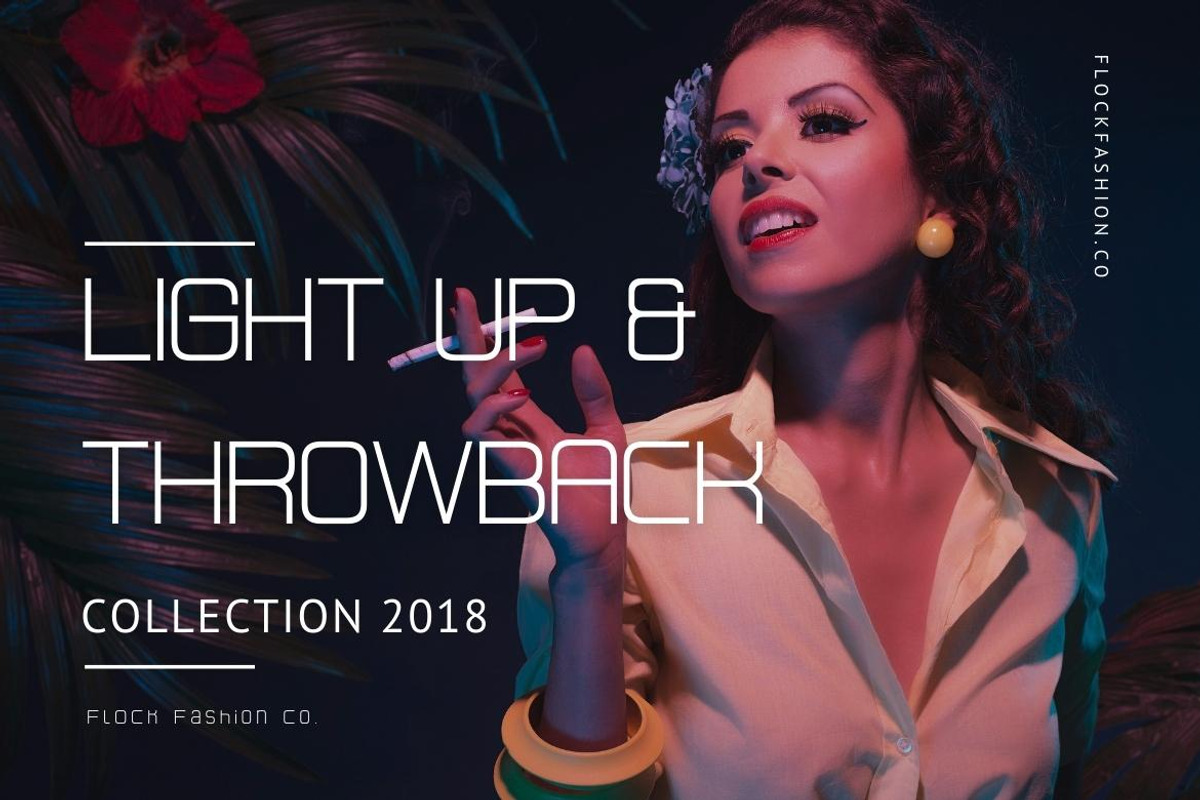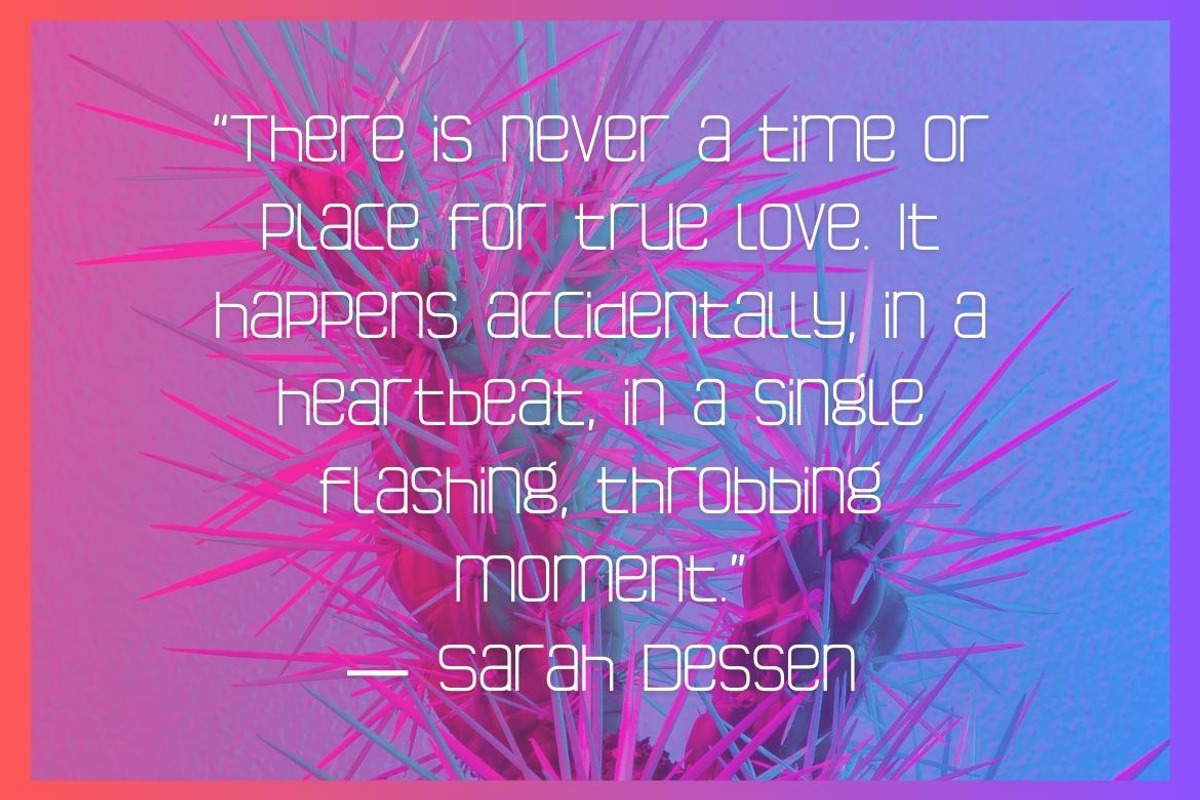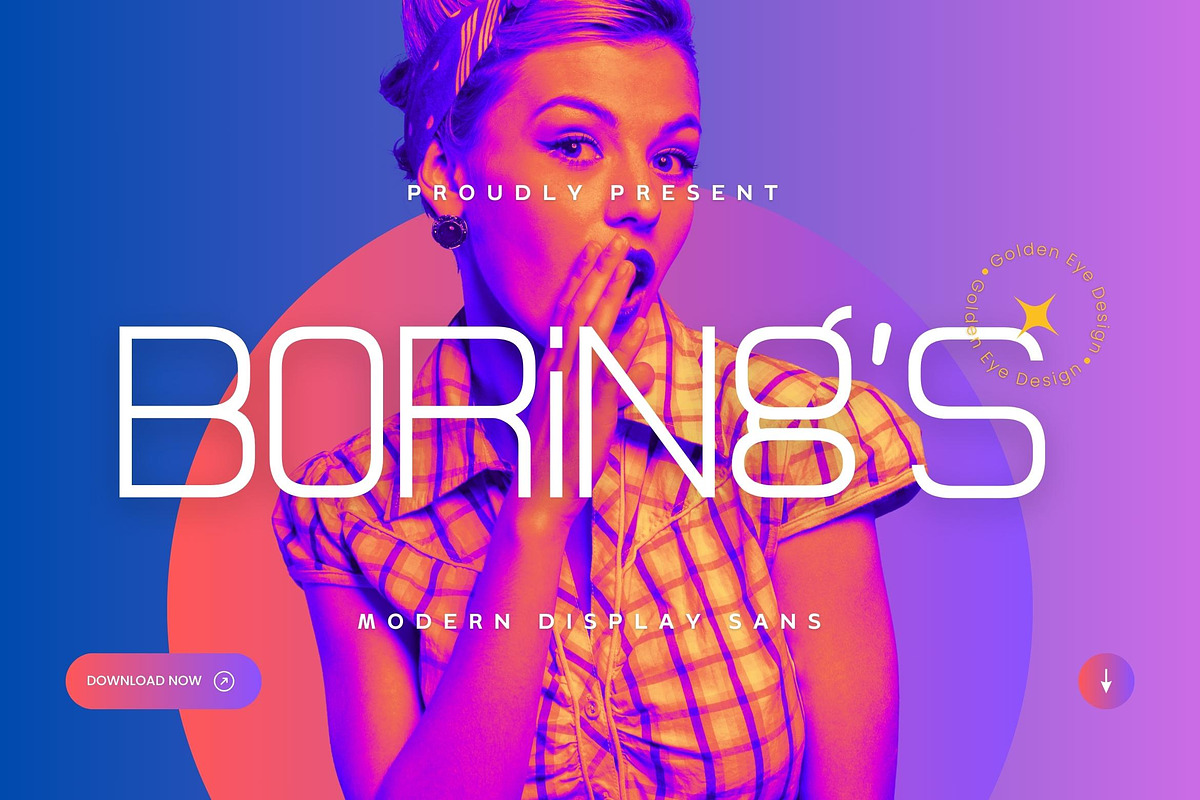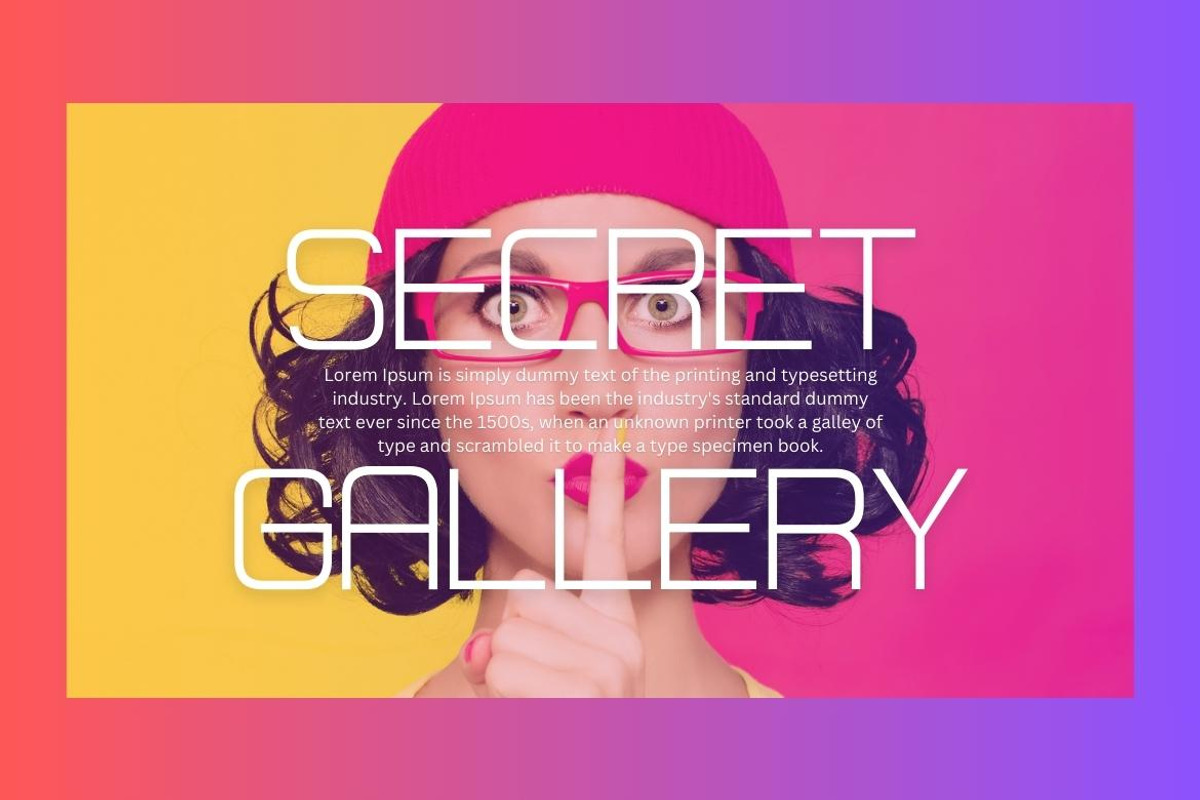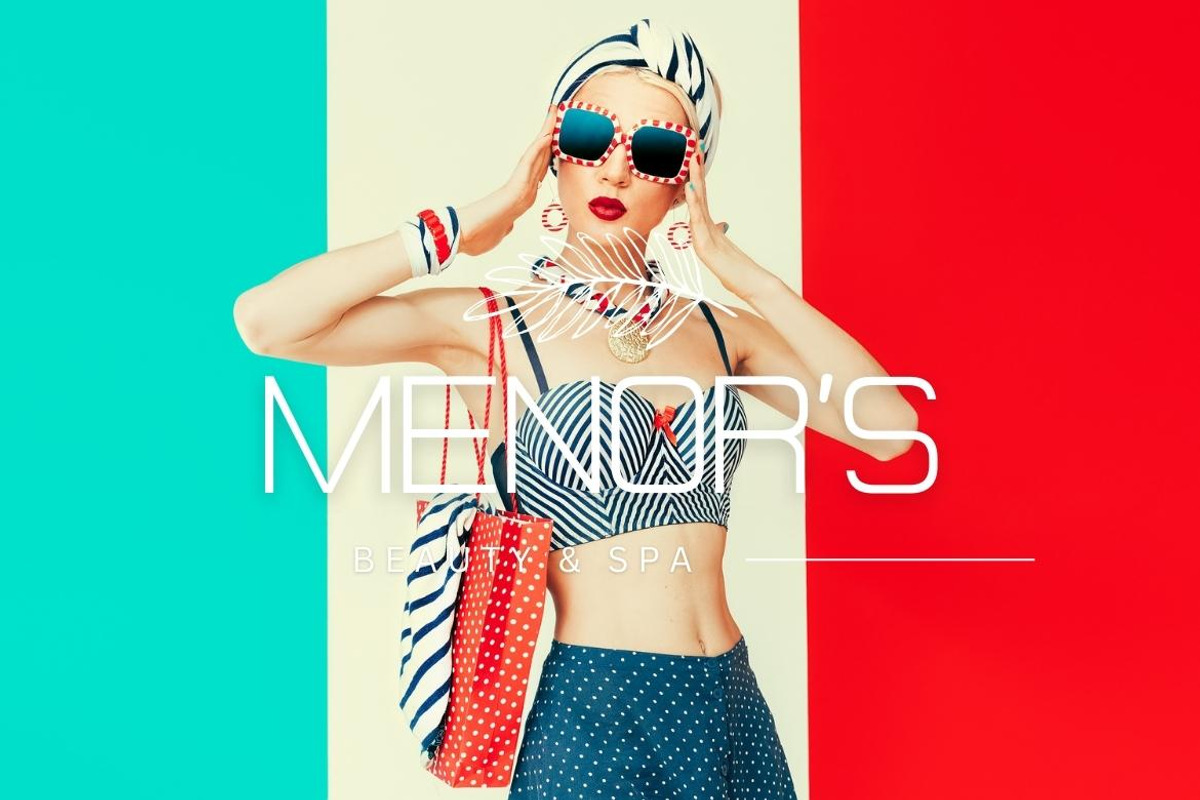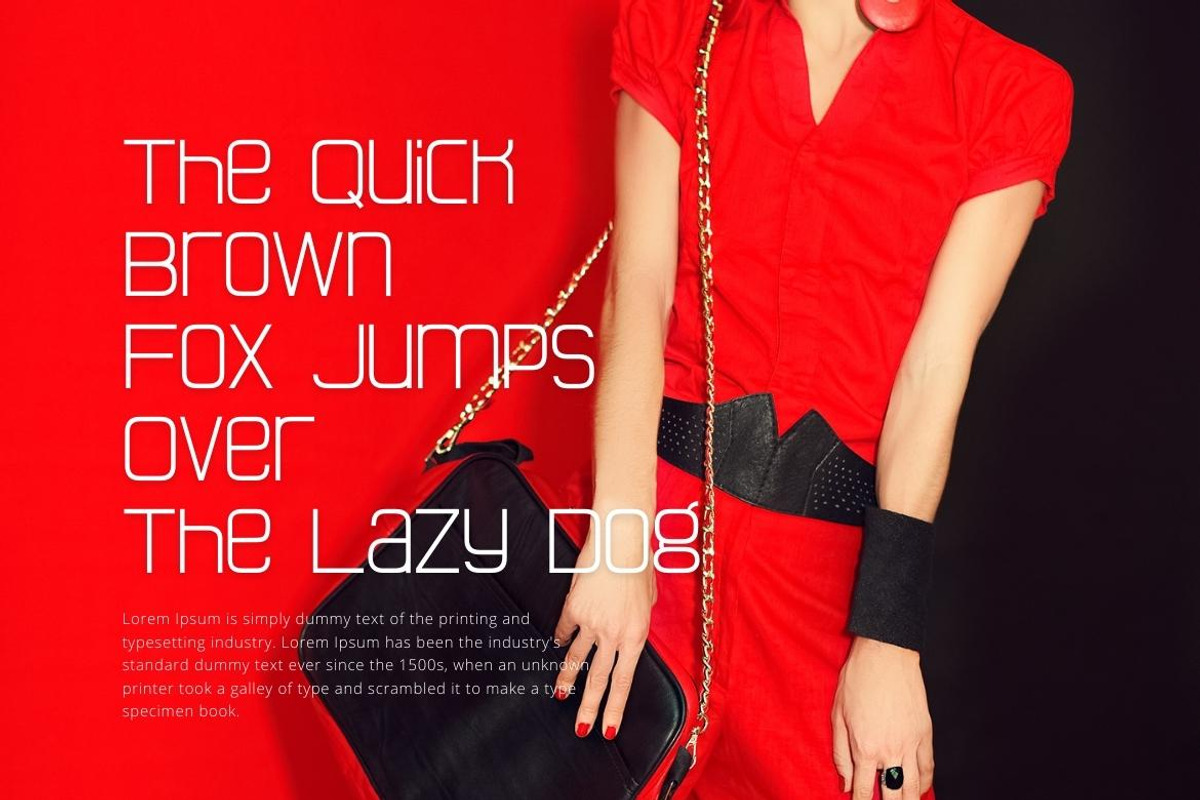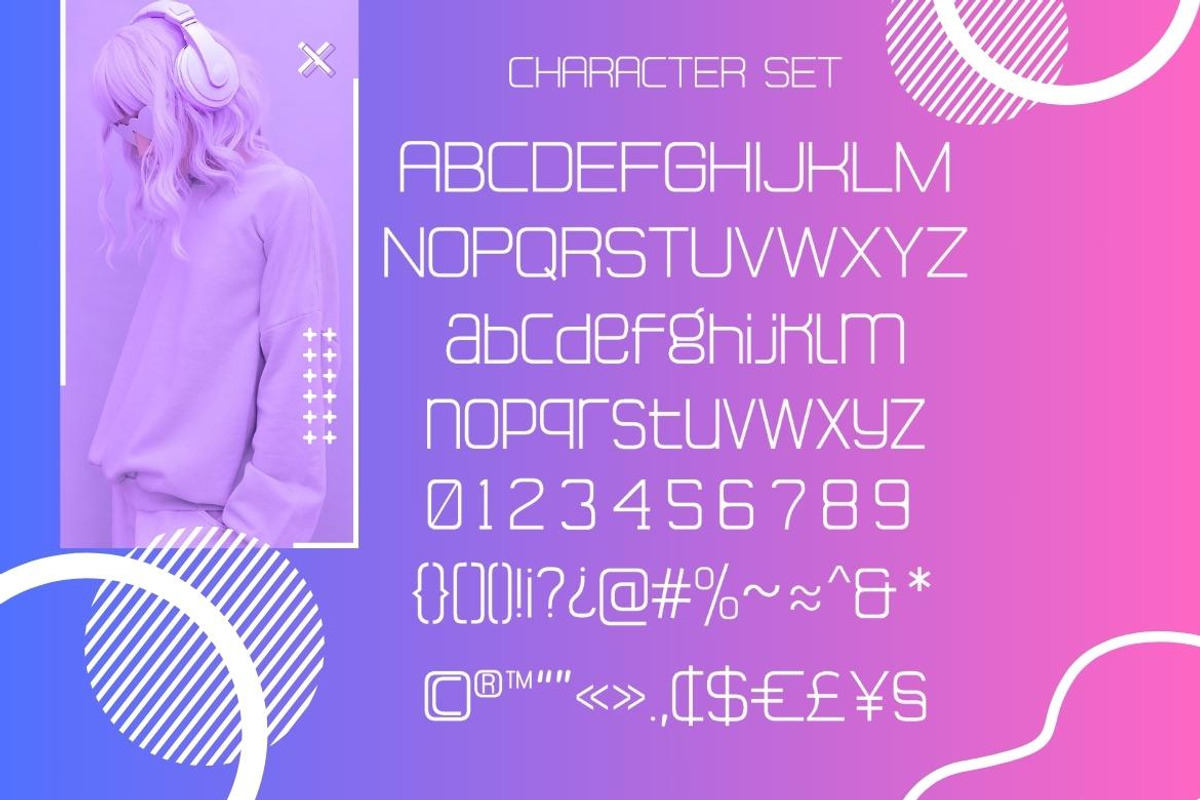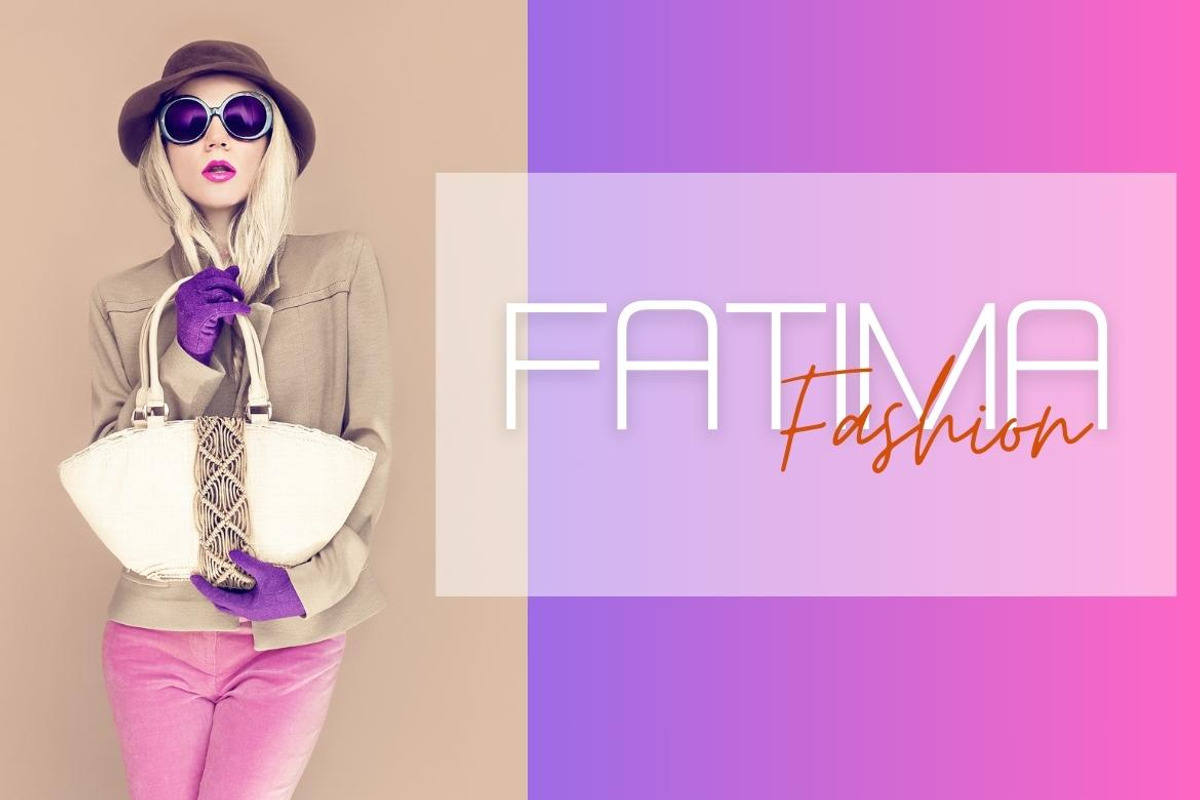
Boring's - Modern Display Sans
Introducing Boring's - Modern Display Sans Serif. Boring's is a modern and simple font, best used as a display for headings, logos, branding, magazines, product packaging and invitations.